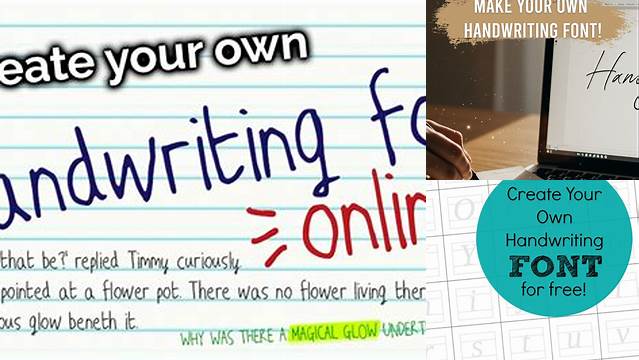
Free Online Handwriting Font Generator
Creating your own handwriting font can add a personal touch to your digital projects, making everything from invitations to websites feel more unique. It's like stamping your personality onto the digital world! And guess what? You can do it all online, often for free. This article will guide you through the process, exploring various tools and techniques to bring your handwriting to life as a font. So, let's dive in, guys, and see how you can transform your script into a stunning digital typeface.
1. The Basics of Handwriting Font Creation
Creating your own handwriting font might seem daunting, but it's actually a pretty straightforward process, especially with the tools available online today. The core idea is to convert your handwritten characters into a digital format that can be used in word processors, graphic design software, and more. Typically, this involves writing out each letter of the alphabet, numbers, and punctuation marks on a template, scanning or photographing it, and then using a font creation tool to digitize your handwriting. These tools interpret your strokes and curves, turning them into a functional font. The beauty of a custom handwriting font lies in its authenticity; it’s a true reflection of your unique style, making your projects stand out. Plus, who wouldn't want to see their own handwriting in an email or a document? It's a fantastic way to add a personal touch to your digital communications and creative endeavors.
2. Free Online Font Generators: An Overview
There are several free online font generators that make the process of creating your own handwriting font super accessible. These platforms typically offer a user-friendly interface where you can upload your handwriting samples and convert them into a usable font file. Some popular options include Calligraphr, FontStruct, and MyScriptFont. Each platform has its own set of features and quirks, but the basic principle remains the same: you provide the handwriting, and they handle the digitization. These tools often allow you to customize various aspects of your font, such as the thickness of the lines, the spacing between characters, and even the overall style of the font. Whether you’re looking for a playful, whimsical font or a more formal, elegant one, these generators can help you achieve the desired effect. It’s amazing how technology has made it possible to capture the essence of your handwriting and use it in countless applications.
3. Step-by-Step Guide: Using Calligraphr
Let's break down the process of creating a handwriting font using one of the most popular online tools: Calligraphr. First, you'll need to visit the Calligraphr website and create a free account. Once you're logged in, you can download a template that includes all the characters, numbers, and symbols you'll need to write out. Print this template and use a fine-tipped black pen to fill in each character within the designated boxes. Try to maintain consistency in your handwriting style to ensure a cohesive font. After you've completed the template, scan or photograph it and upload the image to Calligraphr. The platform will then automatically recognize the characters and allow you to make any necessary adjustments. You can tweak the baseline, adjust the spacing, and even refine individual letters. Once you're satisfied with the result, you can download your font in various formats, such as TTF or OTF, and install it on your computer. Voila! You’ve got your very own handwriting font ready to use in any application.
4. Preparing Your Handwriting Sample
The quality of your handwriting sample significantly impacts the final look of your font. So, it's crucial to prepare it carefully. Start by choosing the right pen; a fine-tipped black pen works best as it provides clear, consistent lines that are easy to digitize. When filling out the template, try to maintain a consistent letter size and spacing. This will help the font generator accurately interpret your handwriting. It's also important to pay attention to the slant and overall style of your letters. If you want your font to have a particular character, make sure that's reflected in your handwriting sample. Scan or photograph your completed template in good lighting to ensure the image is clear and free from shadows. The clearer your sample, the better the font generator can process it, resulting in a more polished and professional-looking font. Remember, patience and attention to detail are key here.
5. Scanning and Uploading Your Template
Once you've filled out your handwriting template, the next step is to scan or photograph it and upload it to the font generator. If you have a scanner, that's the ideal option as it provides a high-quality, distortion-free image. Scan the template at a resolution of at least 300 DPI (dots per inch) to ensure the characters are sharp and clear. If you don't have a scanner, don't worry! You can use your smartphone camera. Just make sure to take the photo in good lighting, preferably natural light, and hold the camera directly above the template to avoid any perspective distortion. Once you have a digital image of your template, you can upload it to the font generator. Most platforms support common image formats like JPEG and PNG. After uploading, the generator will analyze your image and attempt to recognize the characters. You may need to manually adjust some of the characters if the recognition isn't perfect, but overall, the process is pretty straightforward. Getting this step right is crucial for a smooth font creation experience.
6. Refining Your Font: Kerning and Spacing
After the font generator has digitized your handwriting, you'll likely need to refine it to ensure it looks polished and professional. Two of the most important aspects of font refinement are kerning and spacing. Spacing refers to the overall amount of space between letters, while kerning refers to the adjustment of space between specific pairs of letters. For example, the space between an “A” and a “V” might need to be reduced to make the words look more balanced. Most font generators offer tools to adjust both spacing and kerning, allowing you to fine-tune the appearance of your font. Pay close attention to the overall rhythm and flow of the text when adjusting these settings. A well-kerned and spaced font will be much more readable and aesthetically pleasing. It's these small details that can make a big difference in the final product.
7. Choosing the Right Font Style for Your Project
Before you even start creating your handwriting font, it's a good idea to think about the style you want to achieve and how it will fit with your project. Are you looking for a playful, casual font for invitations or a more formal, elegant font for professional documents? The style of your handwriting should align with the overall tone and purpose of your project. For instance, a loopy, cursive font might be perfect for a wedding invitation, while a clean, sans-serif-inspired handwriting font might be better suited for a business presentation. Consider the readability of your font as well. While a highly stylized font might look beautiful, it might not be the most practical choice for long blocks of text. Think about the context in which your font will be used and choose a style that complements it.
8. Common Mistakes to Avoid When Creating Handwriting Fonts
Creating a handwriting font can be a fun and rewarding process, but there are a few common mistakes you'll want to avoid. One of the biggest is inconsistency in your handwriting. Try to maintain a consistent letter size, slant, and style throughout the template. Another mistake is not paying enough attention to the spacing and kerning of your font. Incorrect spacing can make your text look awkward and difficult to read. Also, make sure to test your font in various sizes and applications to ensure it looks good in all contexts. Don't be afraid to make adjustments and refinements as needed. Finally, avoid using a pen with ink that bleeds or feathers, as this can make the digitization process more challenging. By being aware of these common pitfalls, you can create a font that you'll be proud to use in your projects.
9. Using Your Font in Different Applications
Books on Typography and Font Design